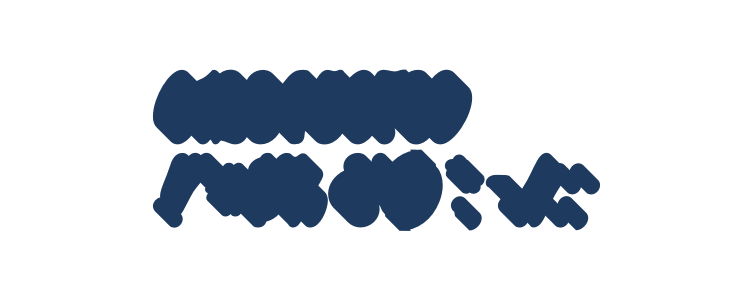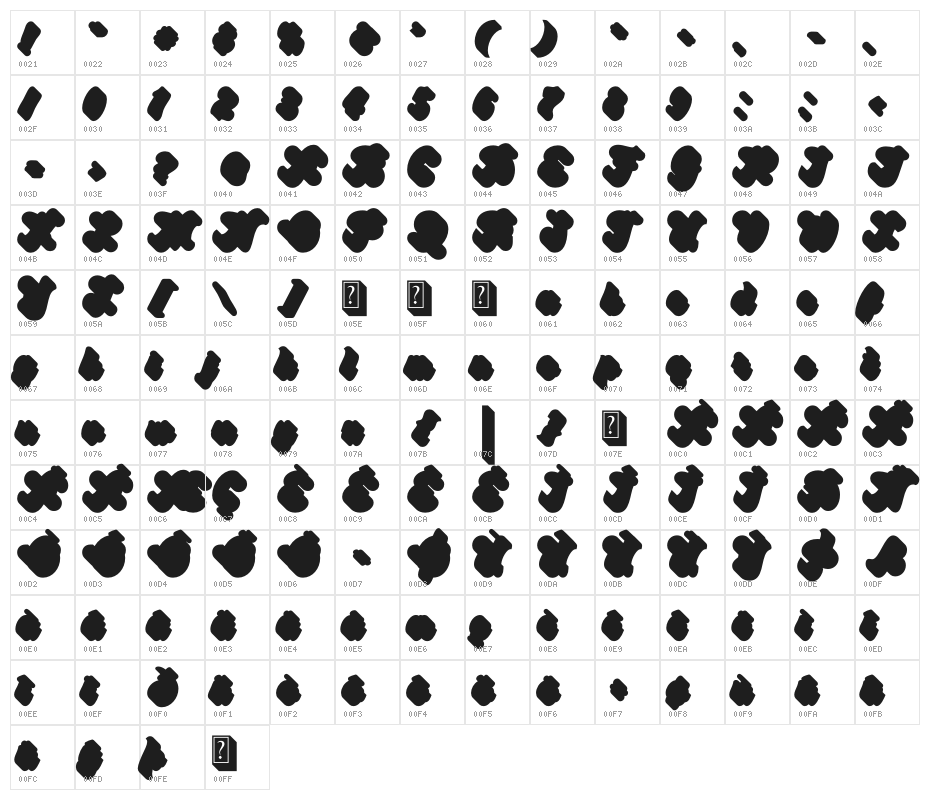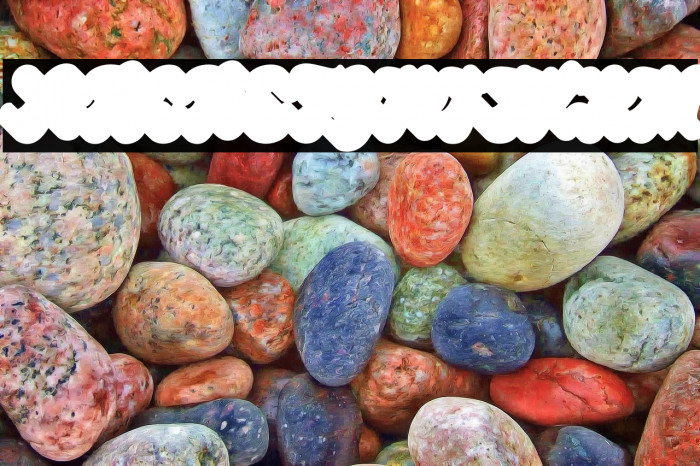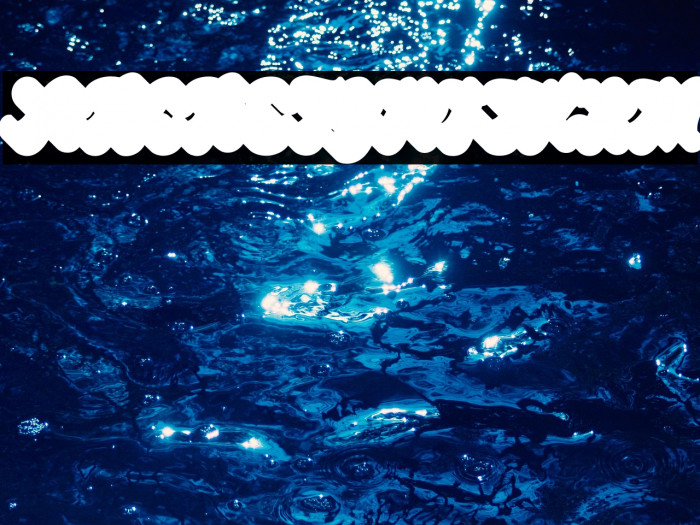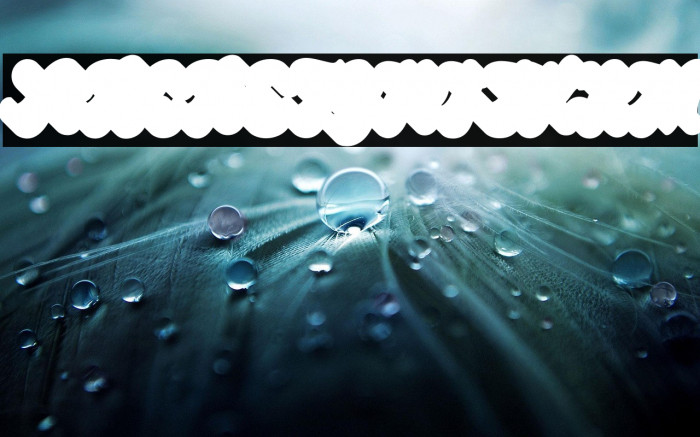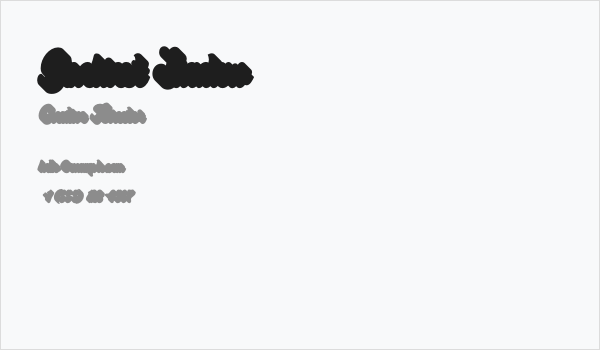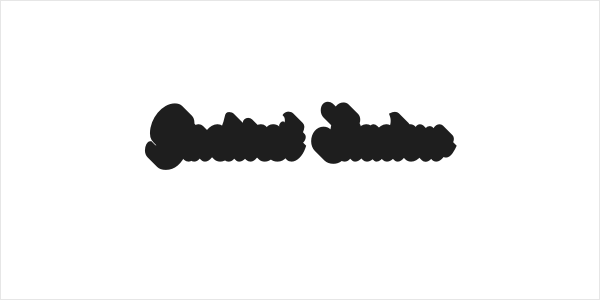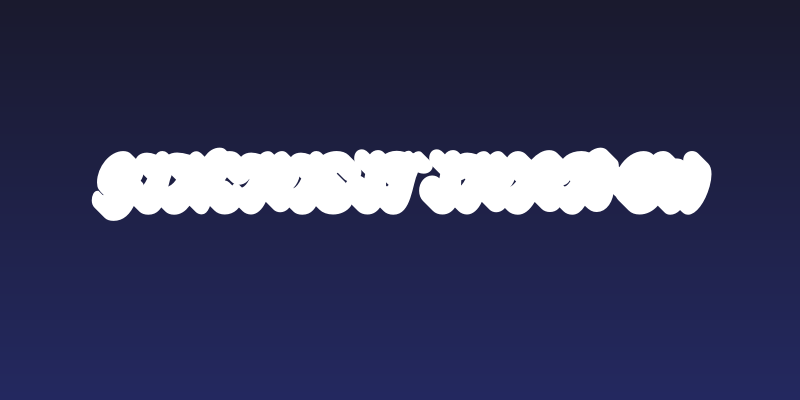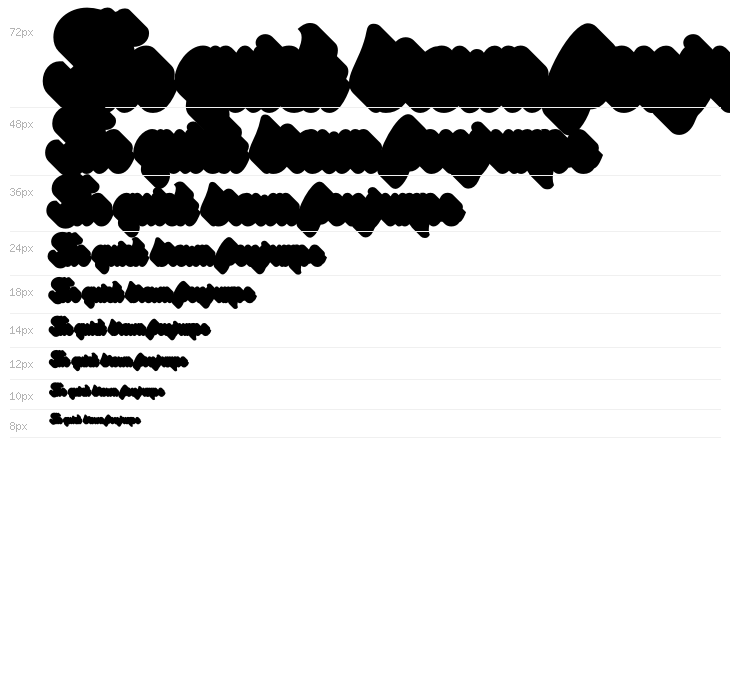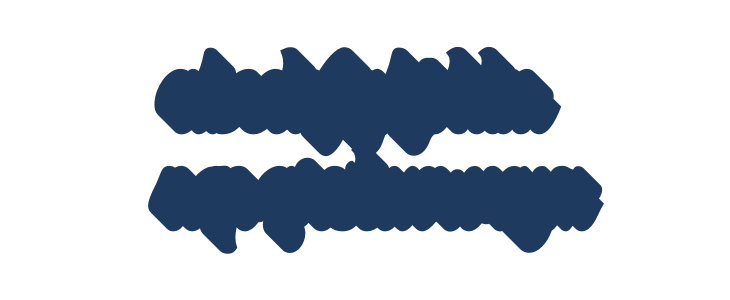
Ginchiest Shadow Font
Ginchiest Shadow Description
This font features a bold, playful style with a strong shadow effect that gives it a three-dimensional appearance. The characters are rounded and thick, creating a sense of fun and energy. The shadow adds depth, making the letters pop off the page. This style is reminiscent of retro or comic book aesthetics, with a touch of whimsy. The font is highly decorative, making it suitable for eye-catching designs. Its boldness ensures that it stands out, while the shadow effect adds a layer of visual interest.
| Overall Style | Retro, Playful |
| Proposed Projects | Ideal for comic book titles, retro-themed posters, playful branding, and children's book covers. |